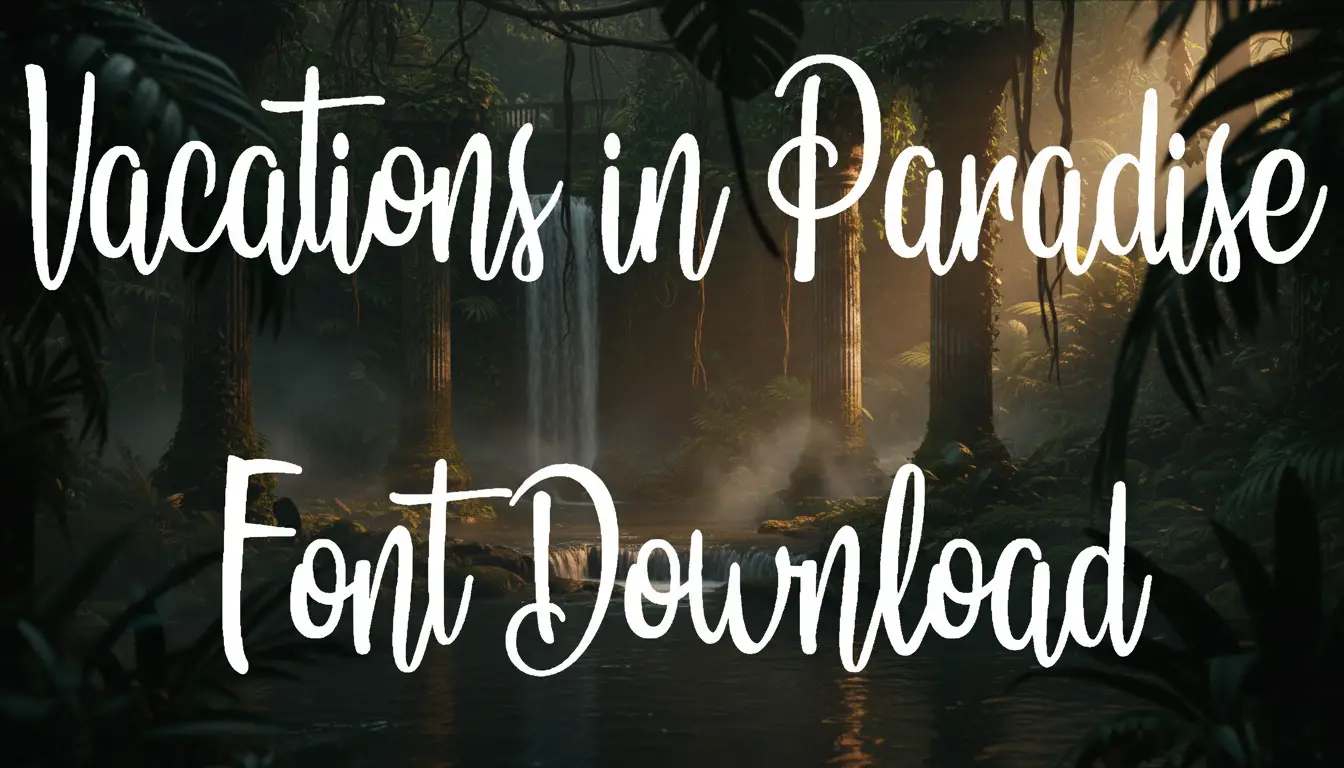
Vacations in Paradise
Vacations in Paradise is a calligraphy font created by Billy Argel (2018). Its flowing, pen-made letters give names and short phrases a personal, polished look. It's a free download, and you can try it with your own text in the preview above first.
What You Can Type With Vacations in Paradise
Vacations in Paradise covers the full alphabet in upper and lowercase, plus all ten numbers, so you can set names, dates and prices without switching fonts. Punctuation is limited, so look at the character map if you need a specific symbol. Thanks to its accented letters, it also works for Spanish, French, German, Portuguese and Italian, not just English.
Where Vacations in Paradise Works Best
Vacations in Paradise is a natural fit for wedding invitations, certificates and elegant quotes. Its lowercase letters are small compared to the capitals, so set it a size or two bigger than usual. Script fonts read best in short bursts, so keep it to names, titles and one-line quotes. Skip all caps: script capitals are drawn to start a word, not to fill one.
Does Vacations in Paradise support accented letters?
Yes. Vacations in Paradise includes the accented letters needed for Spanish, French, German, Portuguese and Italian, so it works for more than just English.